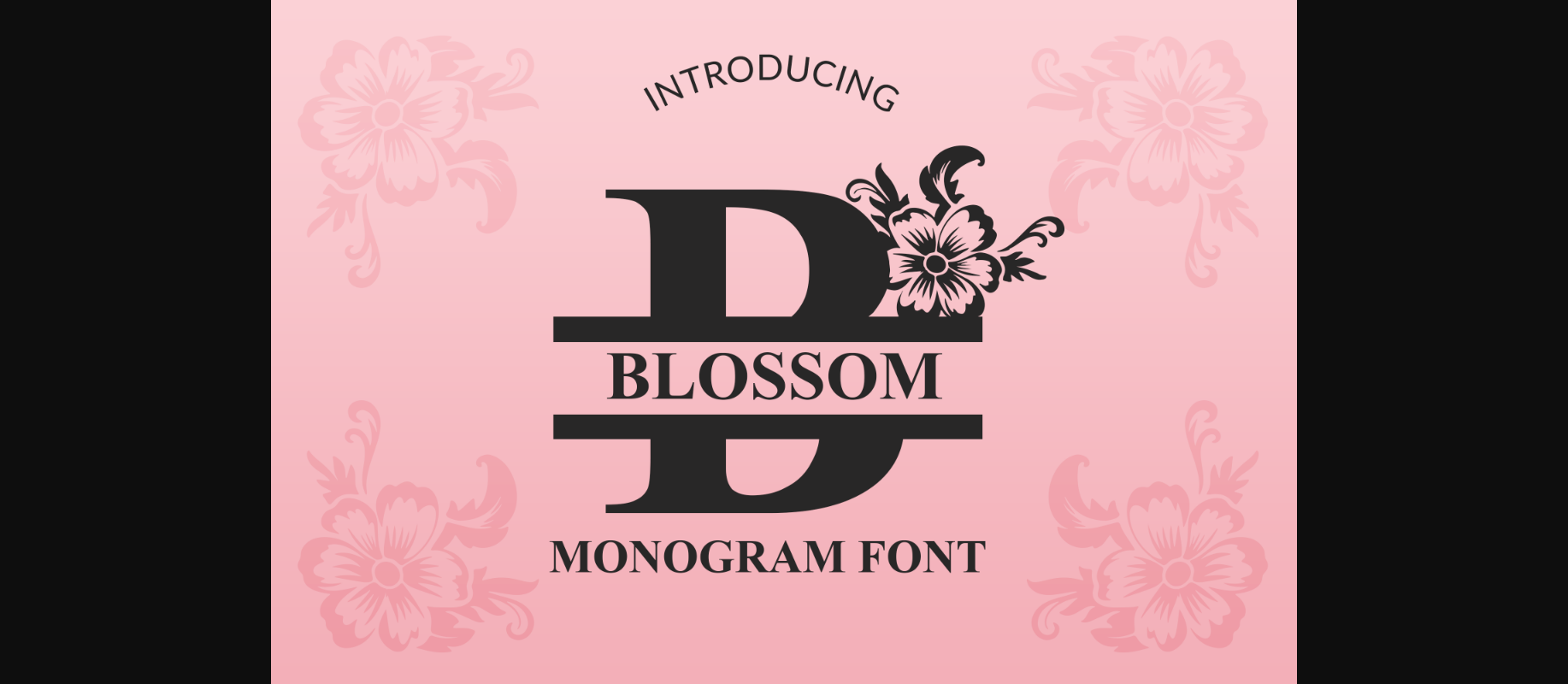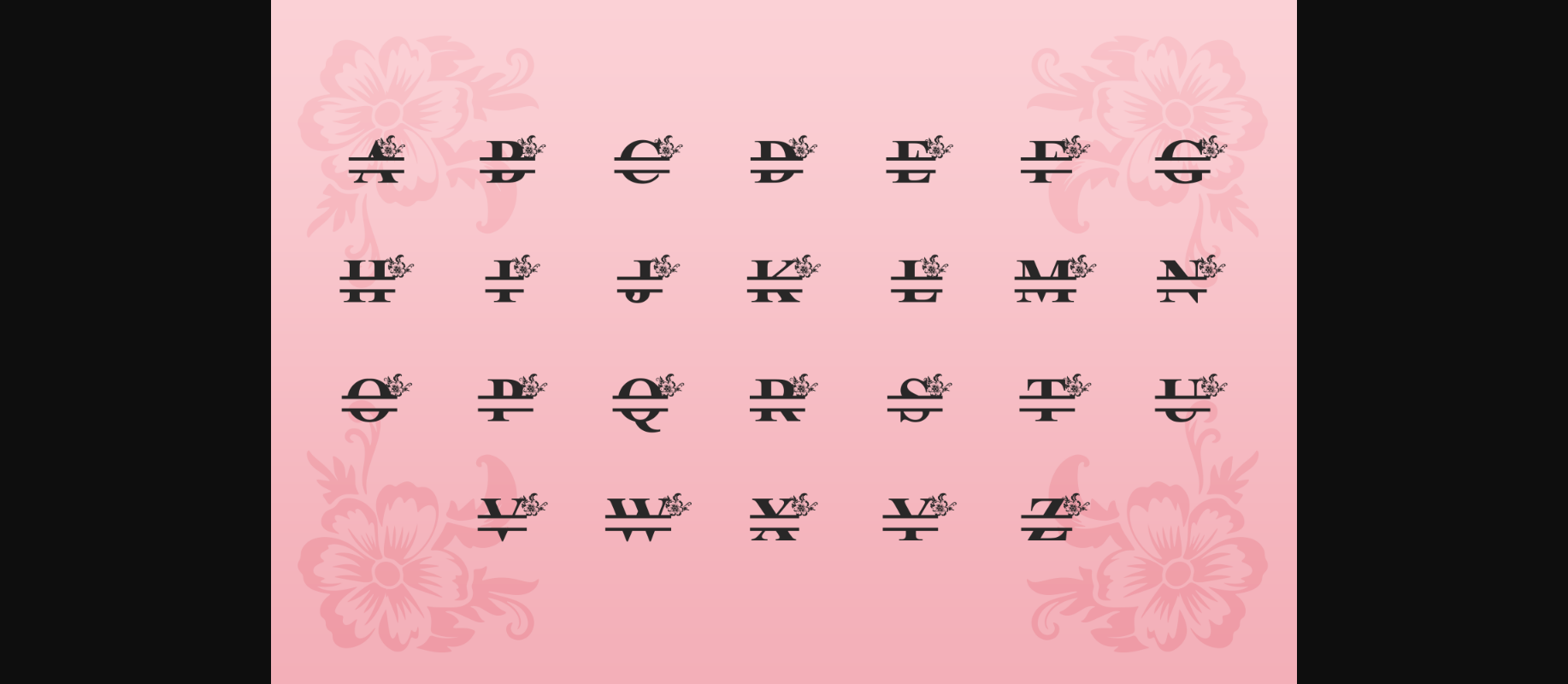
Blossom Monogram Font
About Blossom Monogram Font
Introducing Blossom Monogram a stunning floral monogram font that captures the essence of nature’s beauty, a perfect blend of elegance and flair, designed to bring a touch of botanical charm to your projects.
Use this monogram font by easily typing your initial, then using a font of your choice to add the name in the space provided.